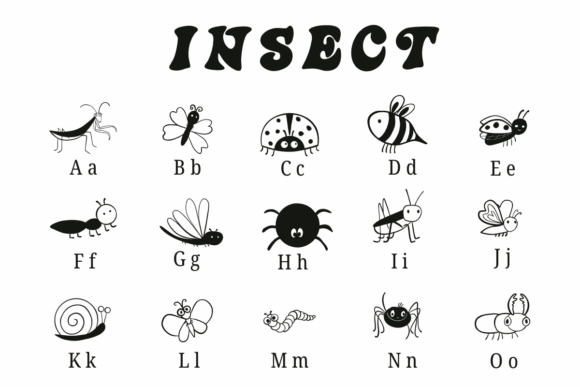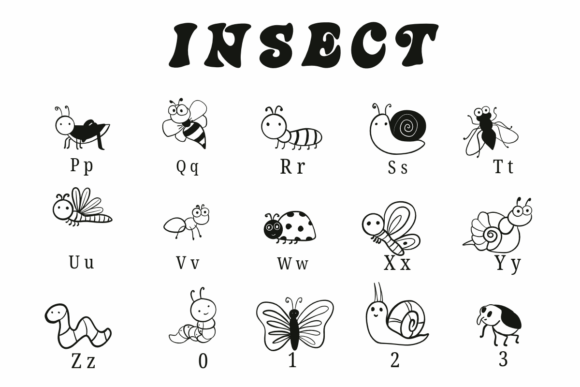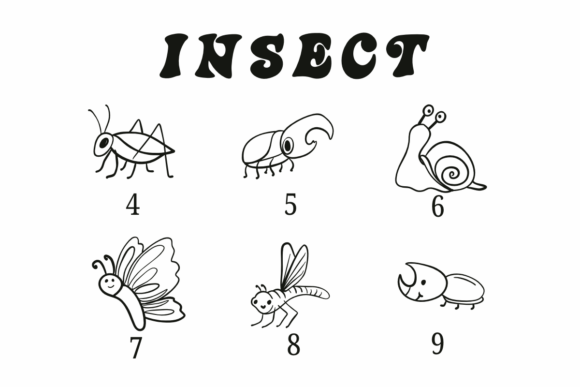
Insect Font
Insect is a dingbats font with a sketched style. This font can enhance your creative projects such as wedding invitations, DIY, crafts, decorations, logos, and many other creative ideas.